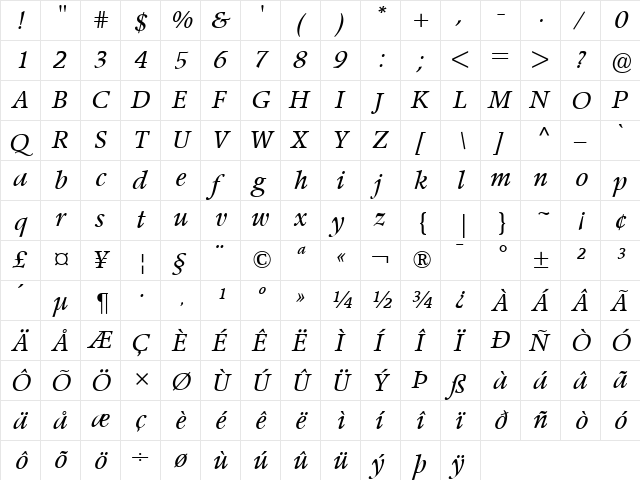
Poppl-Pontifex BE Italic
Design Context for Poppl-Pontifex BE Typeface
Poppl-Pontifex BE offers clean, dependable letterforms without strong stylistic allegiance, making it a practical choice for designers who need flexibility. The slanted form adds forward momentum and visual energy.